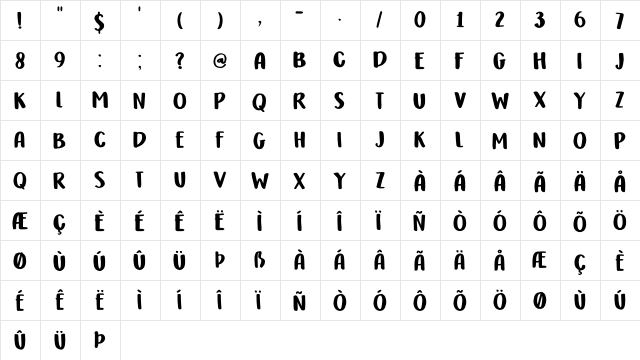
DK Honeyguide Caps Regular
| Foundry | David Kerkhoff |
| Designer | David Kerkhoff |
Design Context for DK Honeyguide Caps Typeface
DK Honeyguide Caps is a composed and adaptable typeface that performs quietly and consistently across a wide range of design contexts.